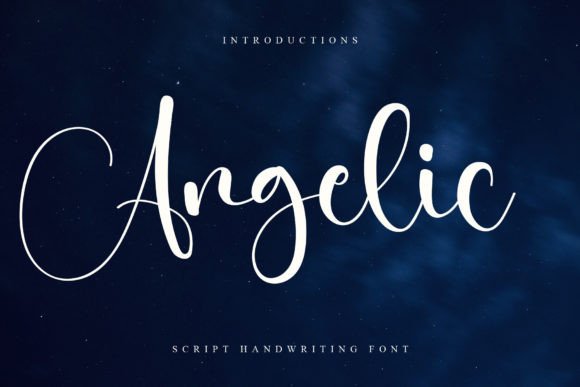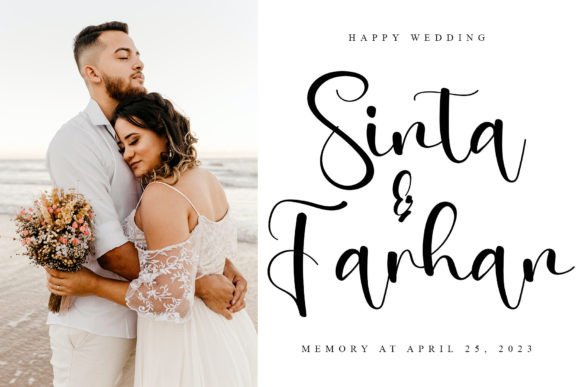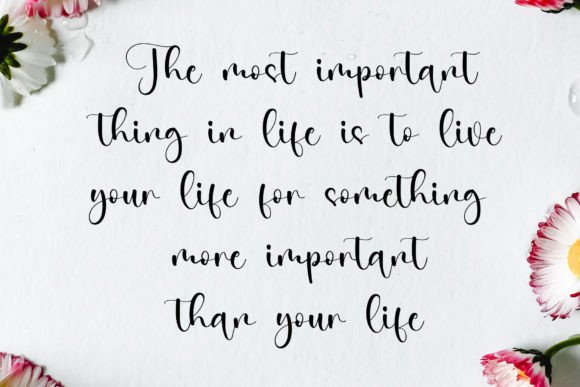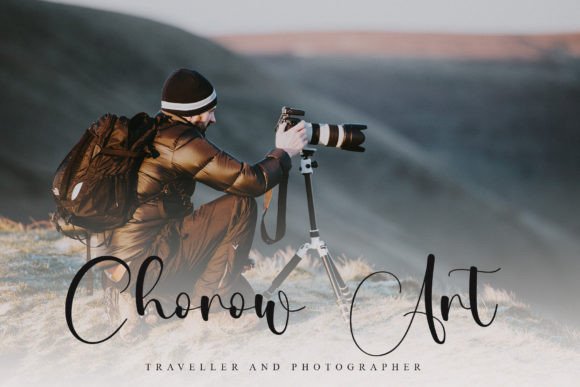
About the Angelic Font
Crafted with precision, the Angelic Font is ready to bring your ideas to life. Angelic is a sweet and cursive handwritten font. This gentle font will look gorgeous on a variety of design ideas. It will add a joyful and romantic touch to each of your projects! Perfectly fit for branding, logo, wedding things, greeting cards, fashion, look book, marketing promotion, anytime you want to look fancy elegant but still casual.
Angelic Font Usage Examples
Angelic Font Example